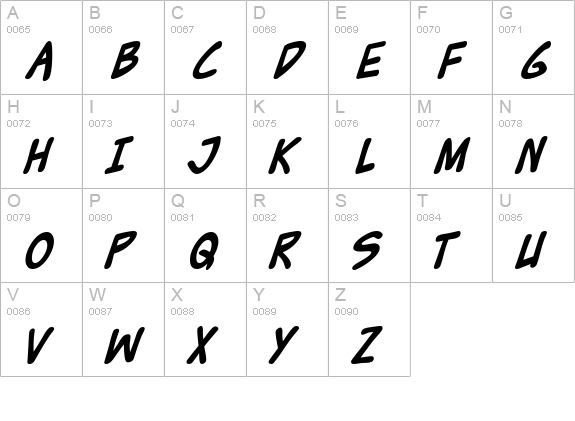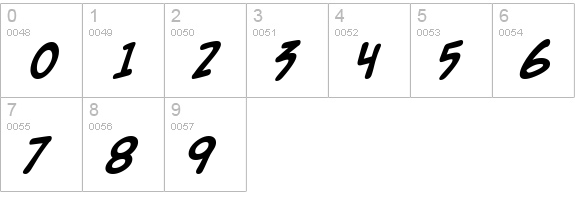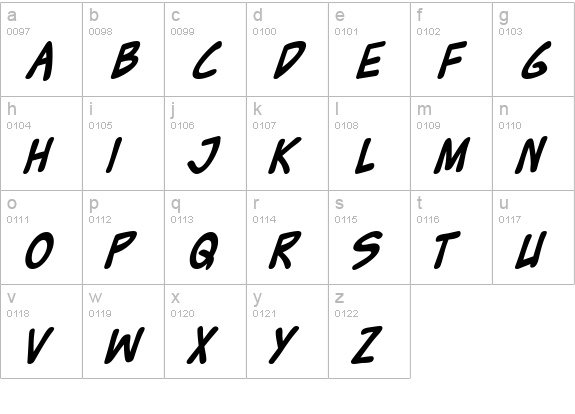
Zud Juice Bold Font Details
Zud Juice Bold is a strong, high-contrast variant in the Zud typeface family \xE2\x80\x94 well suited to headlines, attention-grabbing titles, and strong calls-to-action.
Zud Juice Bold is a sleek and modern font that exudes confidence and style. With its bold and eye-catching design, this font is perfect for making a statement in any project. Whether you're designing posters, logos, or social media graphics, Zud Juice Bold will help your text stand out and grab attention. But the best part is, Zud Juice Bold is completely free! You can easily download this font at FontsMarket.com and start using it in your designs right away. Say goodbye to boring typography and elevate your projects with the striking presence of Zud Juice Bold. Let your creativity flow with this versatile and dynamic font that is sure to make a lasting impression.